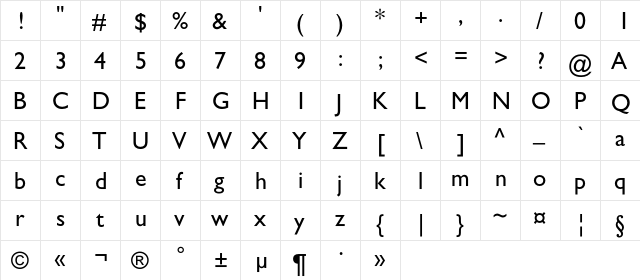
AZGillSansC Regular
Design Context for AZGillSansC Typeface
AZGillSansC is a composed and adaptable typeface that performs quietly and consistently across a wide range of design contexts.